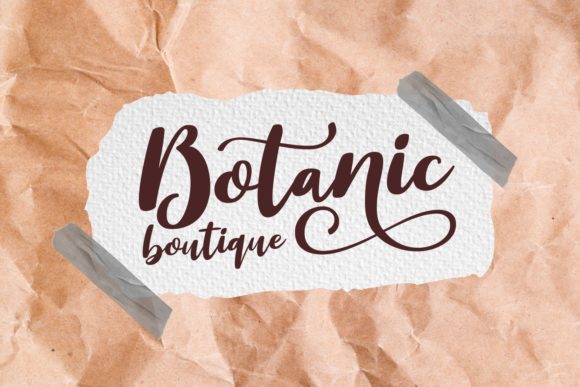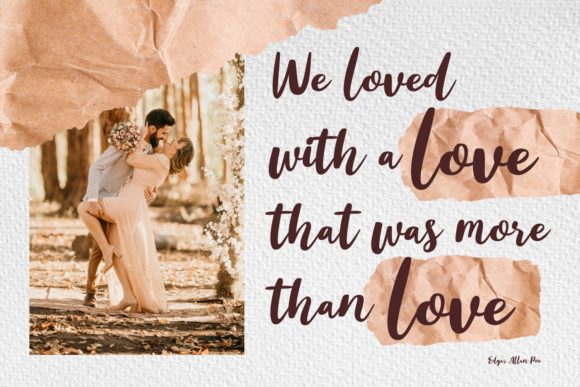
Karlust Font
db-ku.com - Script & Handwritten -- Karlust is a cheerful and dynamic script that features beautiful swashes. Get inspired by its elegant charm!